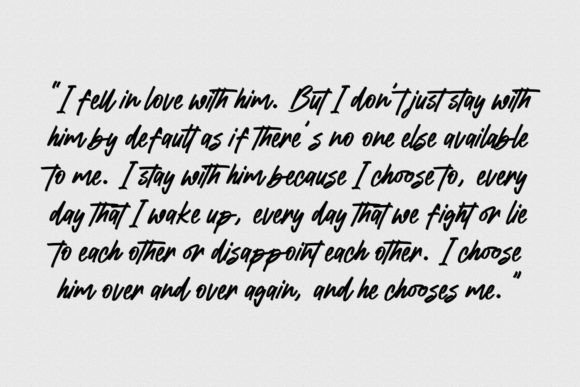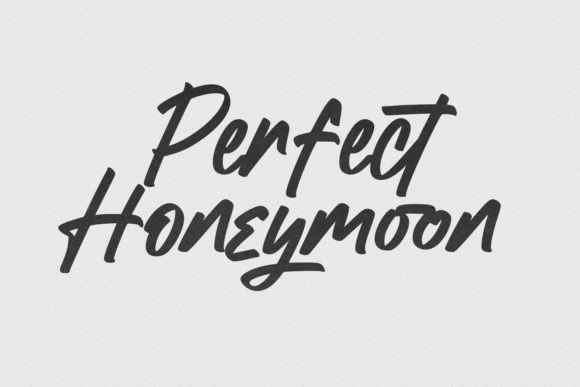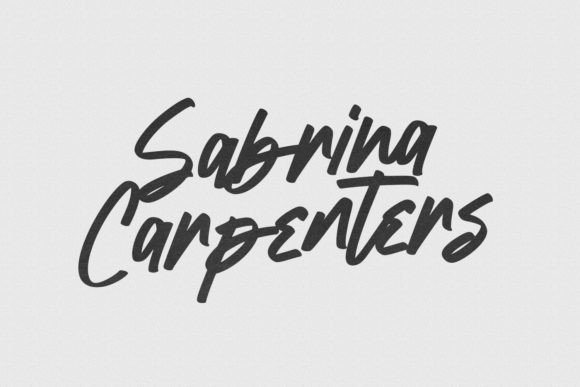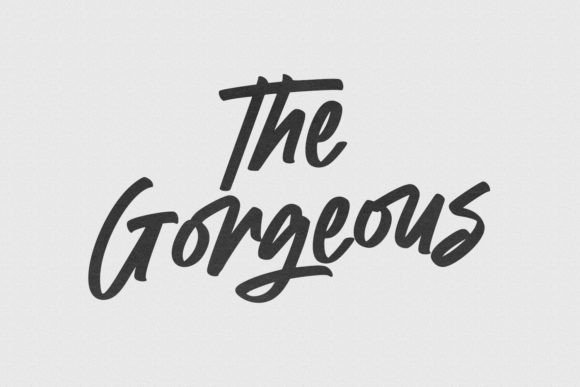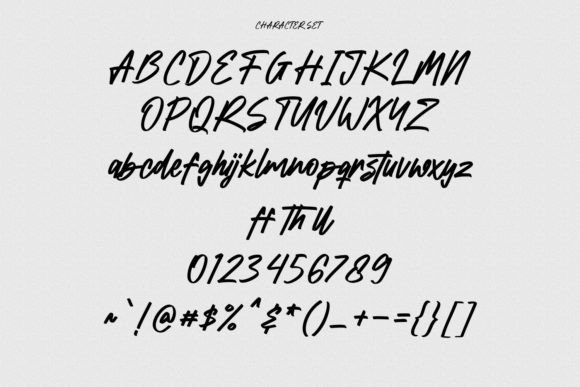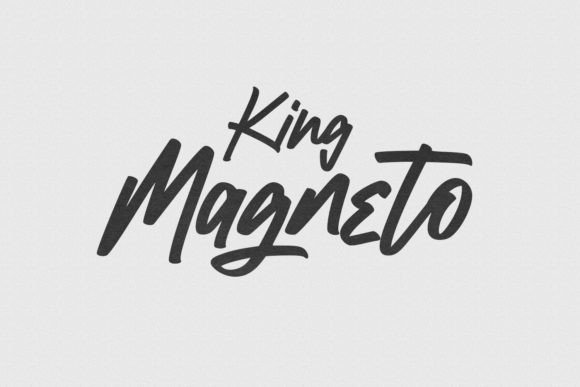
Black Rough Font
About Black Rough Font
**Black Rough Font: A Modern and Bold Handwritten Style**
Introducing Black Rough, a font that strikes the perfect balance between modern boldness and stylish sophistication. This distinctive handwritten font adds a unique touch to your design projects, making them stand out with flair and personality. Here’s why Black Rough deserves a place in your font library:
**Contemporary and Bold:**
Black Rough is all about making a statement. Its bold and assertive style ensures that your text commands attention and leaves a lasting impression. It’s the ideal choice when you want your design to exude confidence and strength.
**Stylish Touch:**
While it may be bold, Black Rough doesn’t sacrifice style. Its carefully crafted characters maintain an elegant flair that sets it apart from other bold fonts. This combination of style and boldness makes Black Rough a versatile choice for various design contexts.
**Unique Personality:**
Black Rough isn’t just another font; it’s a personality that shines through your designs. It adds a touch of individuality and character to your text, making it more relatable and engaging to your audience.
**Perfect for Impactful Messaging:**
When you have a message that needs to be heard loud and clear, Black Rough is the font to turn to. It’s the voice that amplifies your words, making them impossible to ignore.
**Ideal for Branding and Headlines:**
If you’re working on branding materials or headlines that need to make a statement, Black Rough is your ally. It helps you create a brand identity that’s strong, memorable, and confident.
**Versatile and Creative:**
Black Rough is not limited to a specific niche. Its versatility means it can be used across a wide range of design projects, from posters to product packaging, social media graphics, logos, and more. It’s your ticket to unleashing creativity without constraints.
**Stands Out from the Crowd:**
In a world filled with standard fonts, Black Rough is your secret weapon to standing out. It’s the font that catches the eye and invites curiosity.
**Elevate Your Designs with Black Rough:**
In summary, Black Rough is a modern handwritten font that combines boldness with style. Whether you’re crafting branding materials, headlines, or any design that needs impact, Black Rough is your reliable choice. It’s the font that gives your text a voice that demands attention and respect.